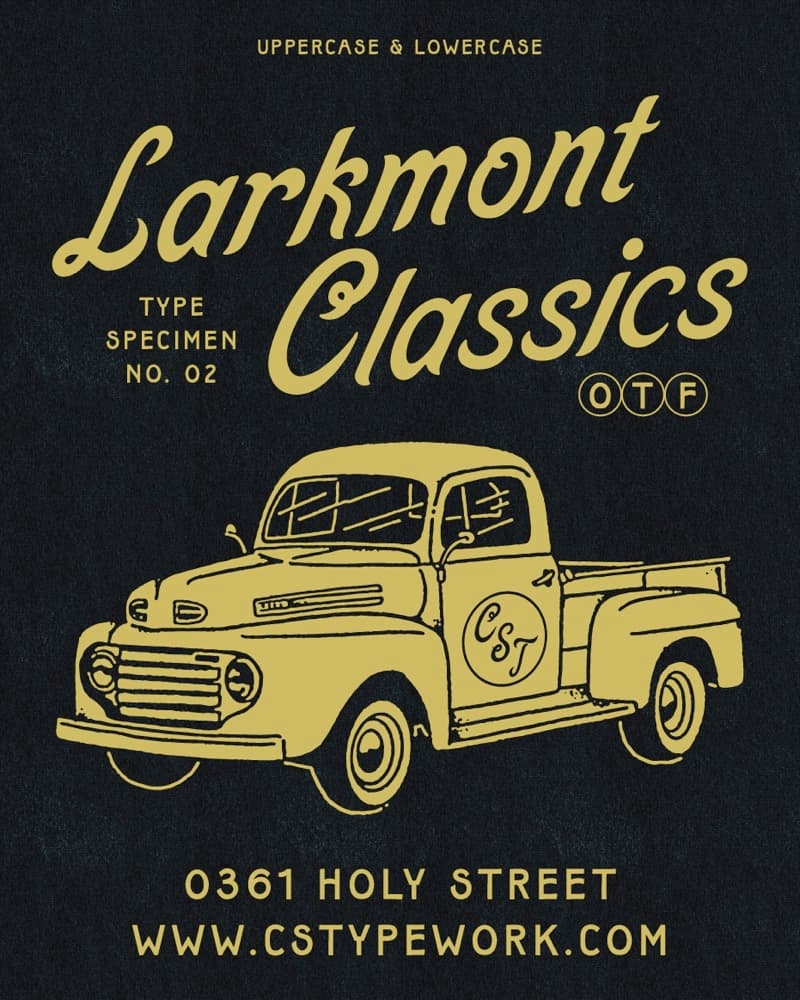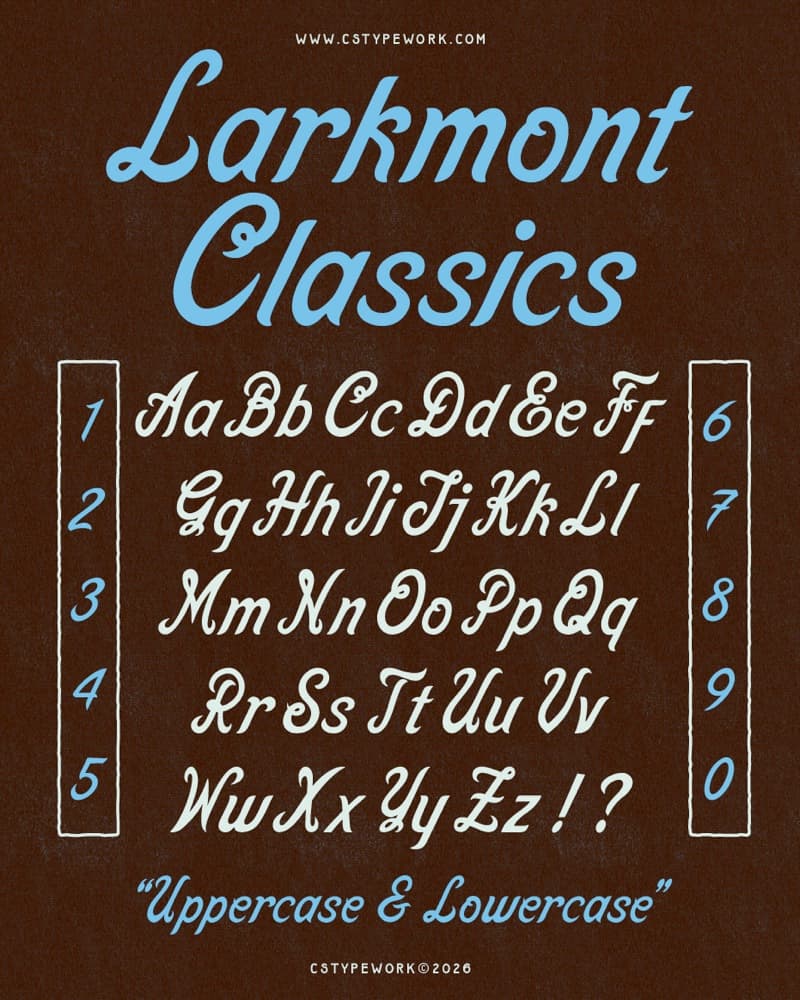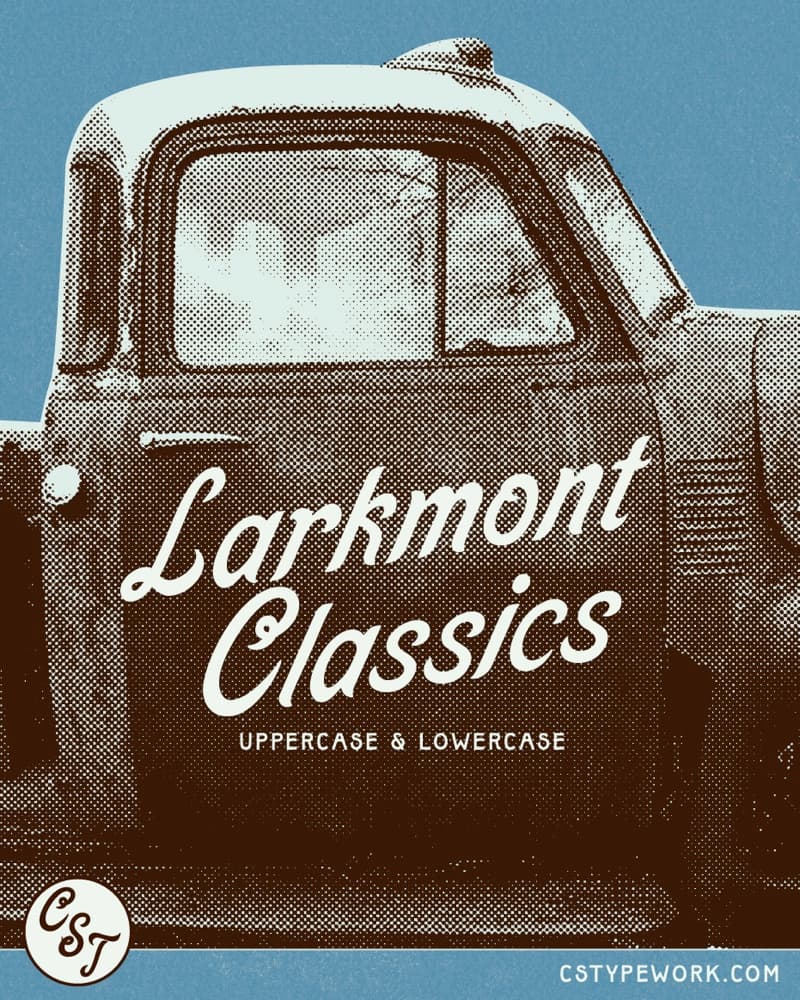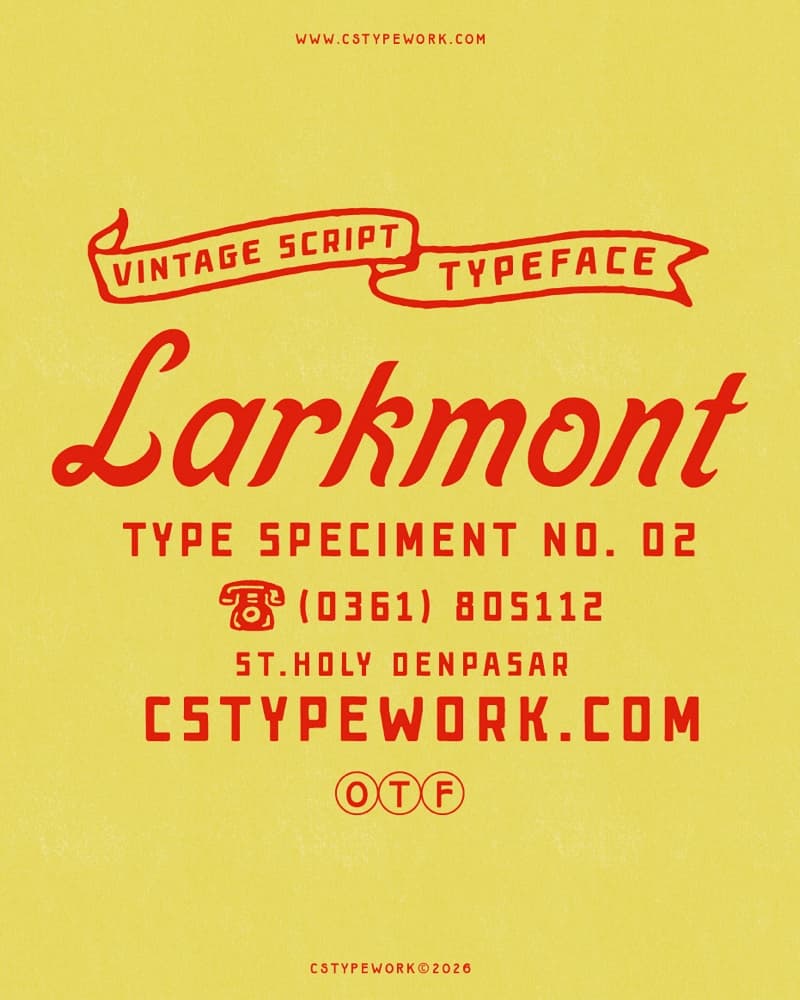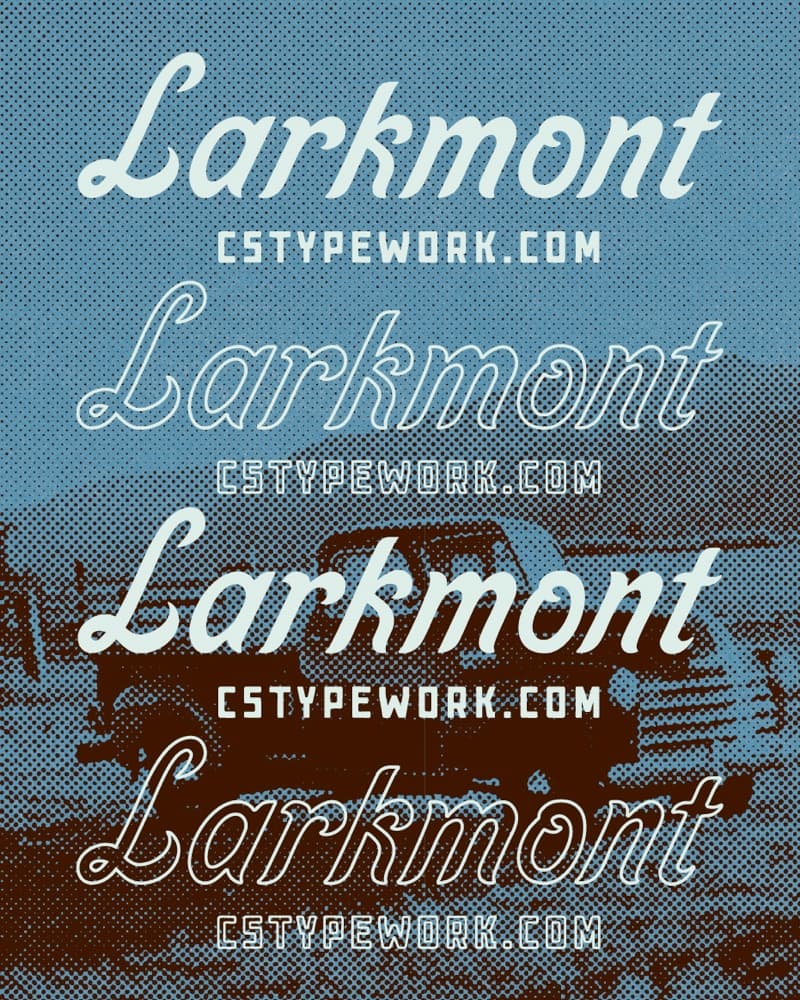
Larkmont Classics CST
Say hello to Larkmont Classics.
This script typeface was inspired by vintage automotive label lettering from the 1970s — the kind you’d find on classic car badges, garage signage, and old racing decals.
Designed with a balance of nostalgic curves and modern usability, it works beautifully for logos, branding, packaging, and display typography.